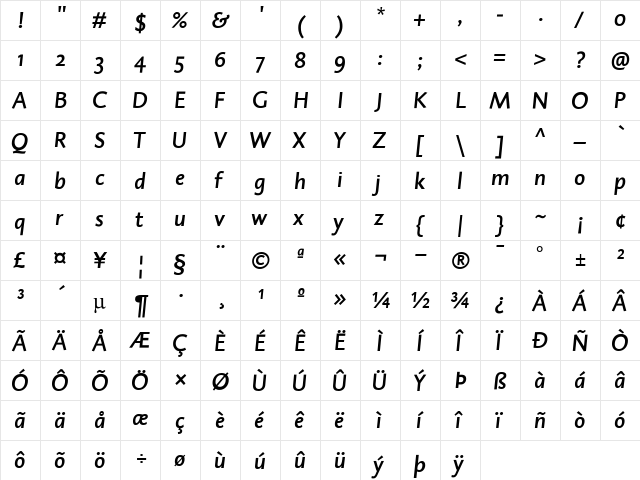
DTLCaspariSTMedium Regular Font Preview
DTLCaspariSTMedium Regular
DTLCaspariSTMedium Regular Font Details
Design Context for DTLCaspariSTMedium Typeface
DTLCaspariSTMedium is a composed and adaptable typeface that performs quietly and consistently across a wide range of design contexts.